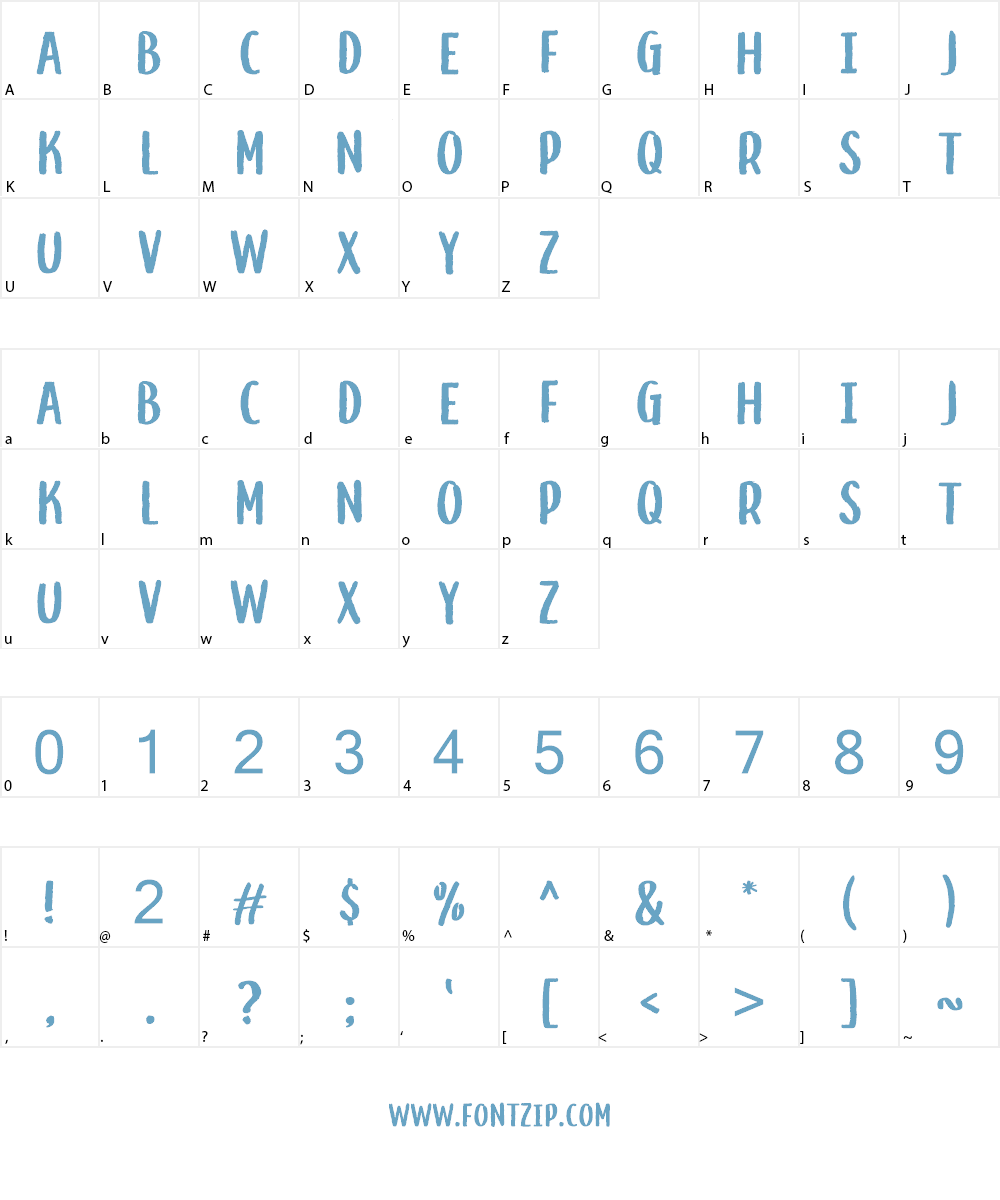
Enjoy the new brush-styled font project from phitradesign fonts. Its premium and vintage designed letters are perfect for posters, logos or bold headlines.